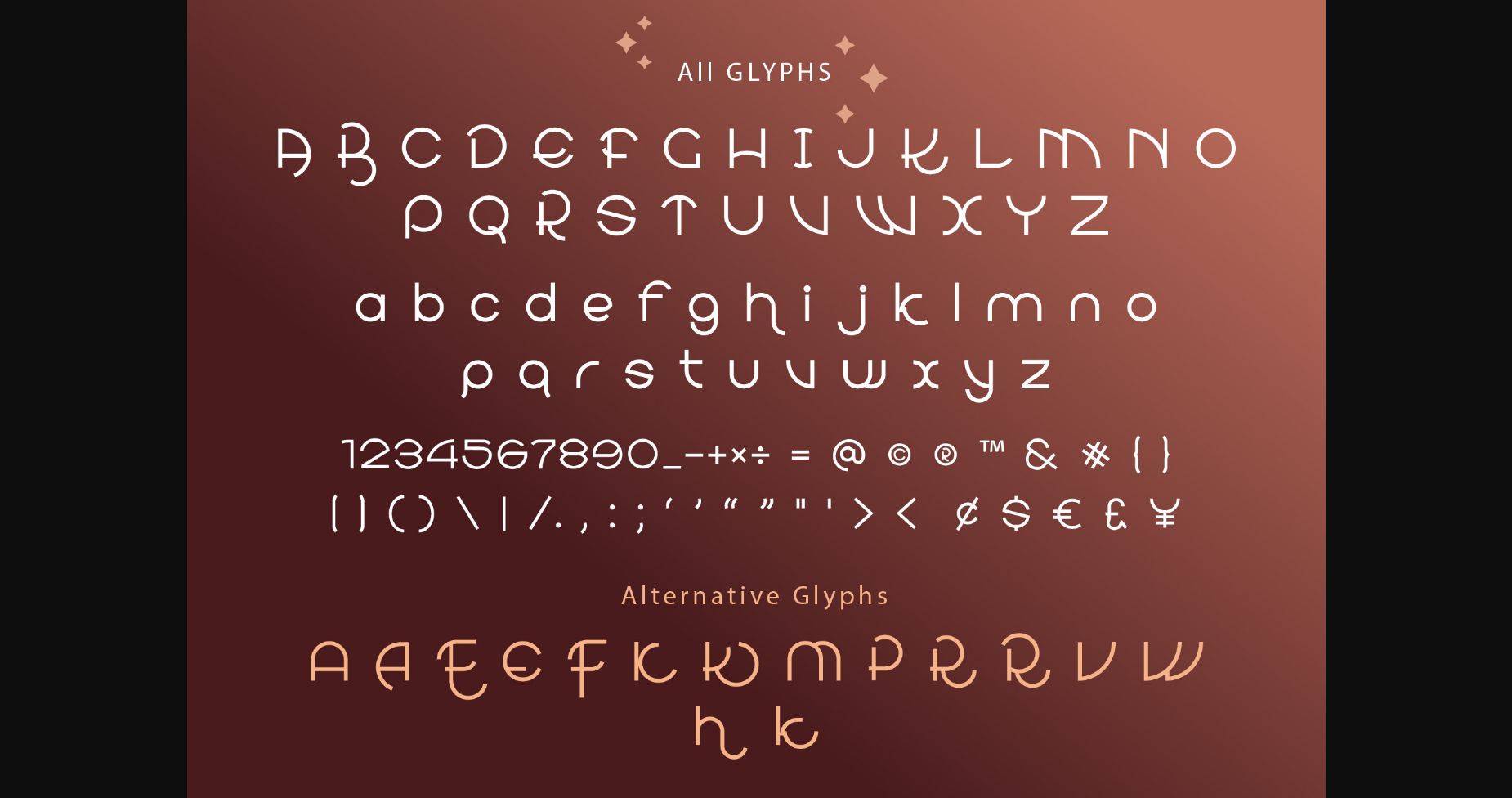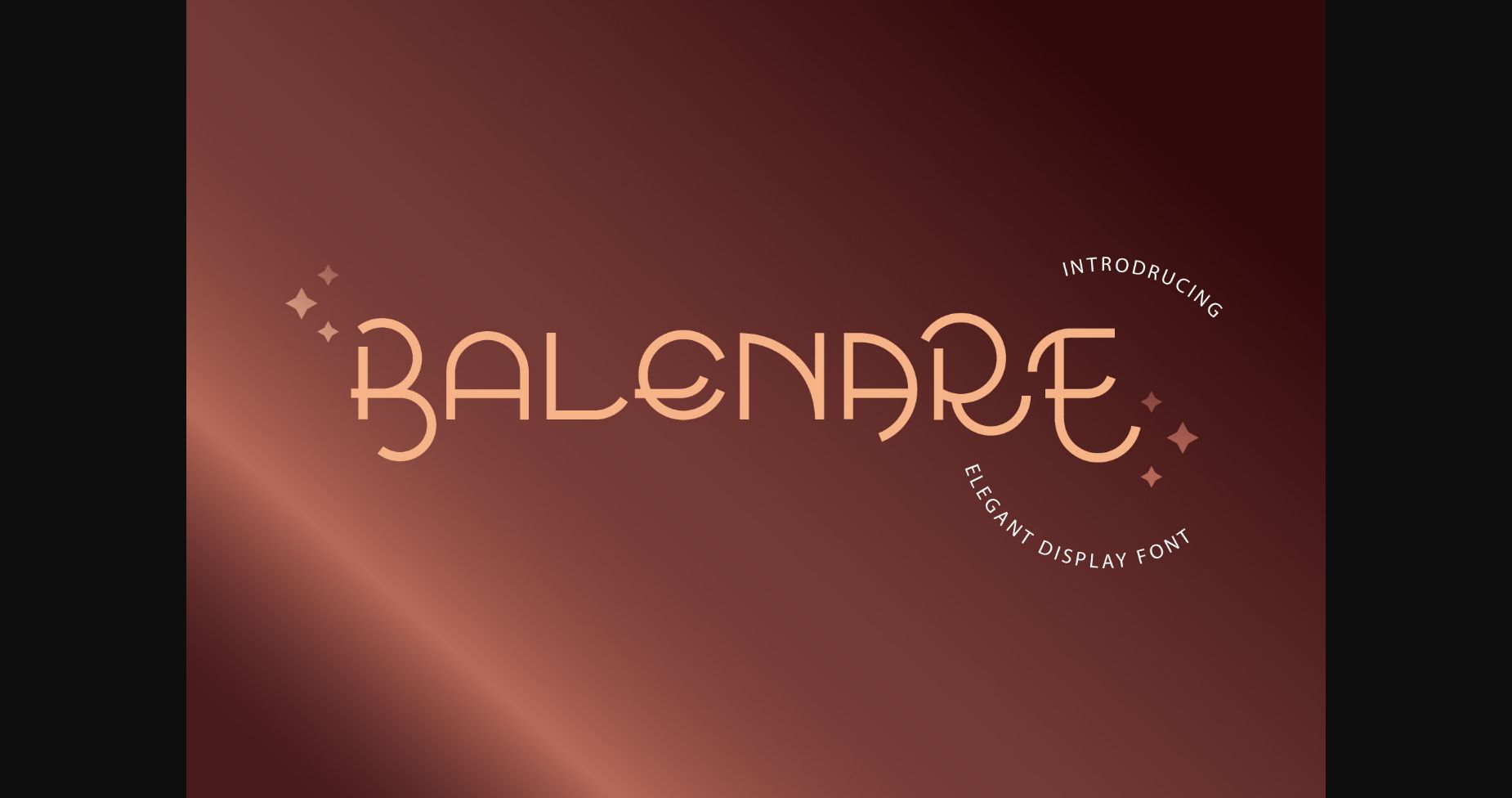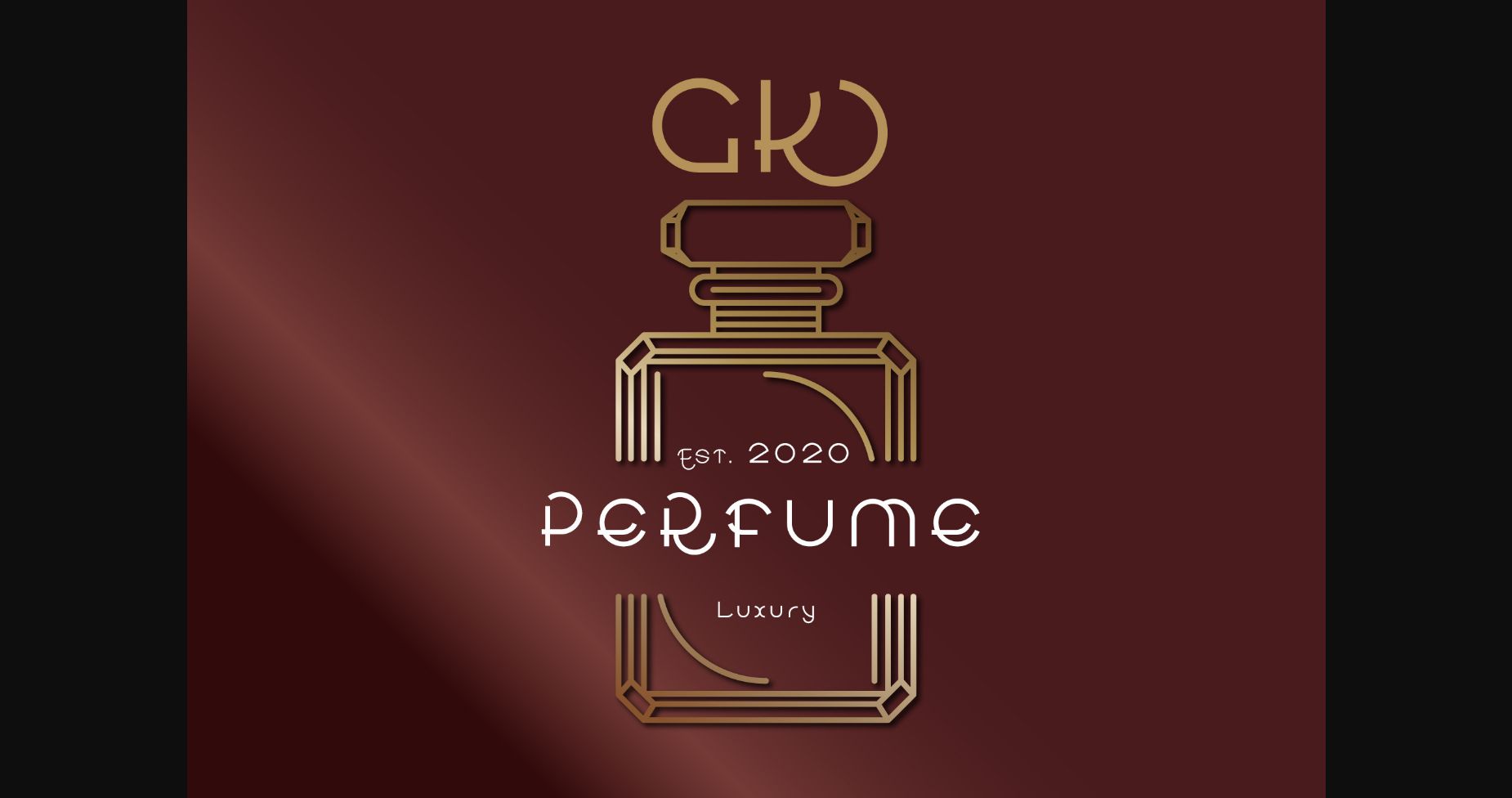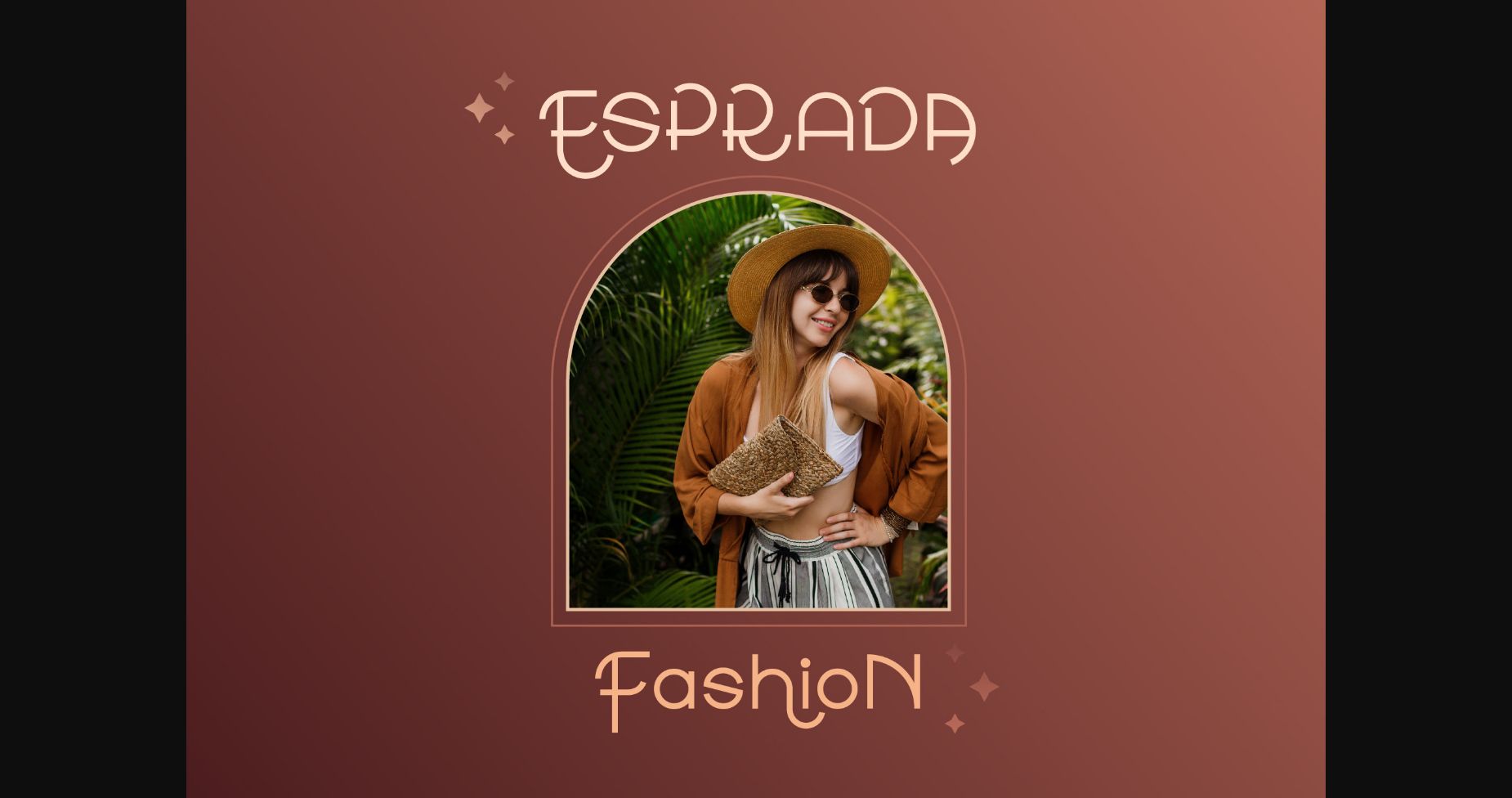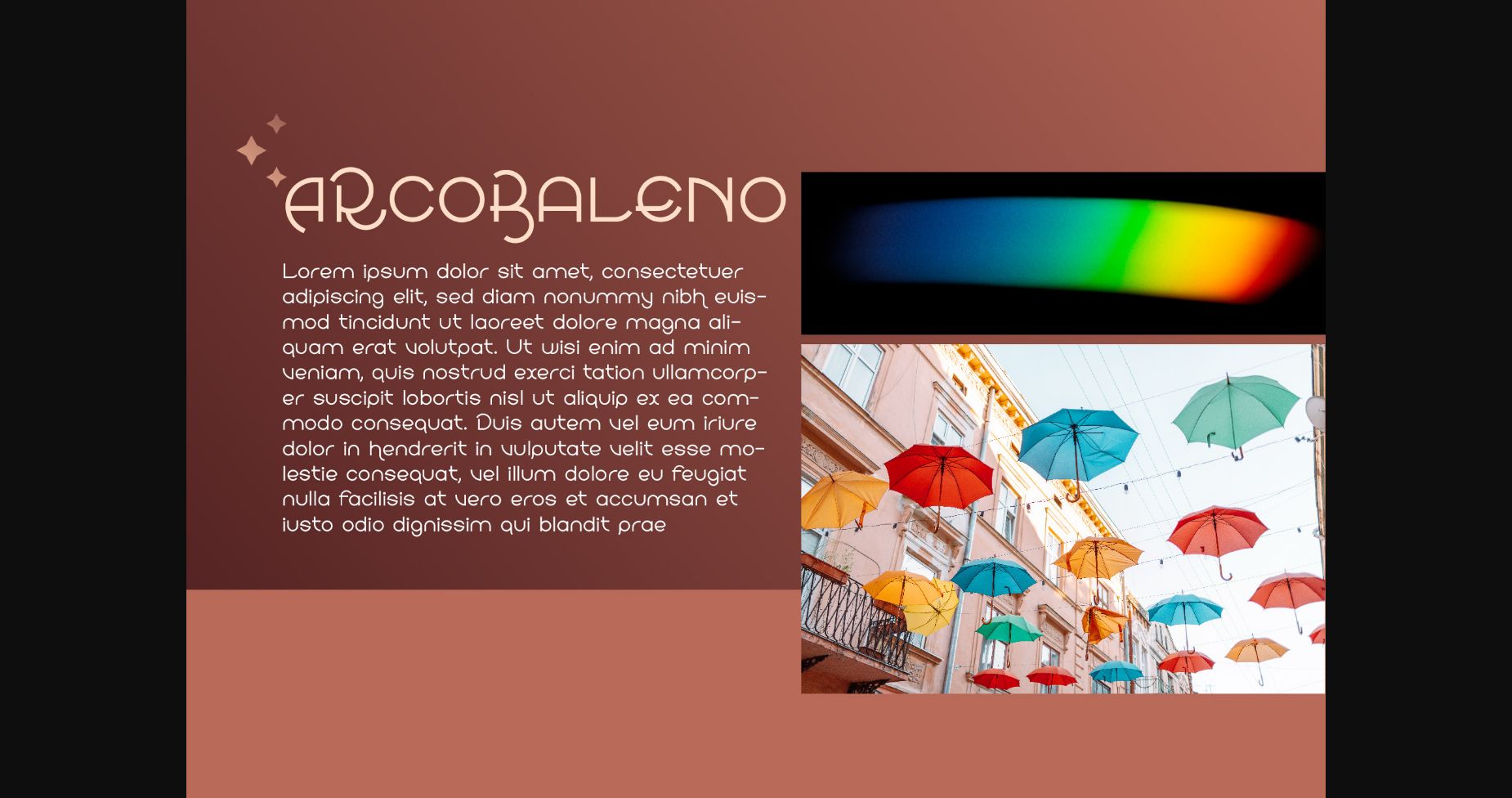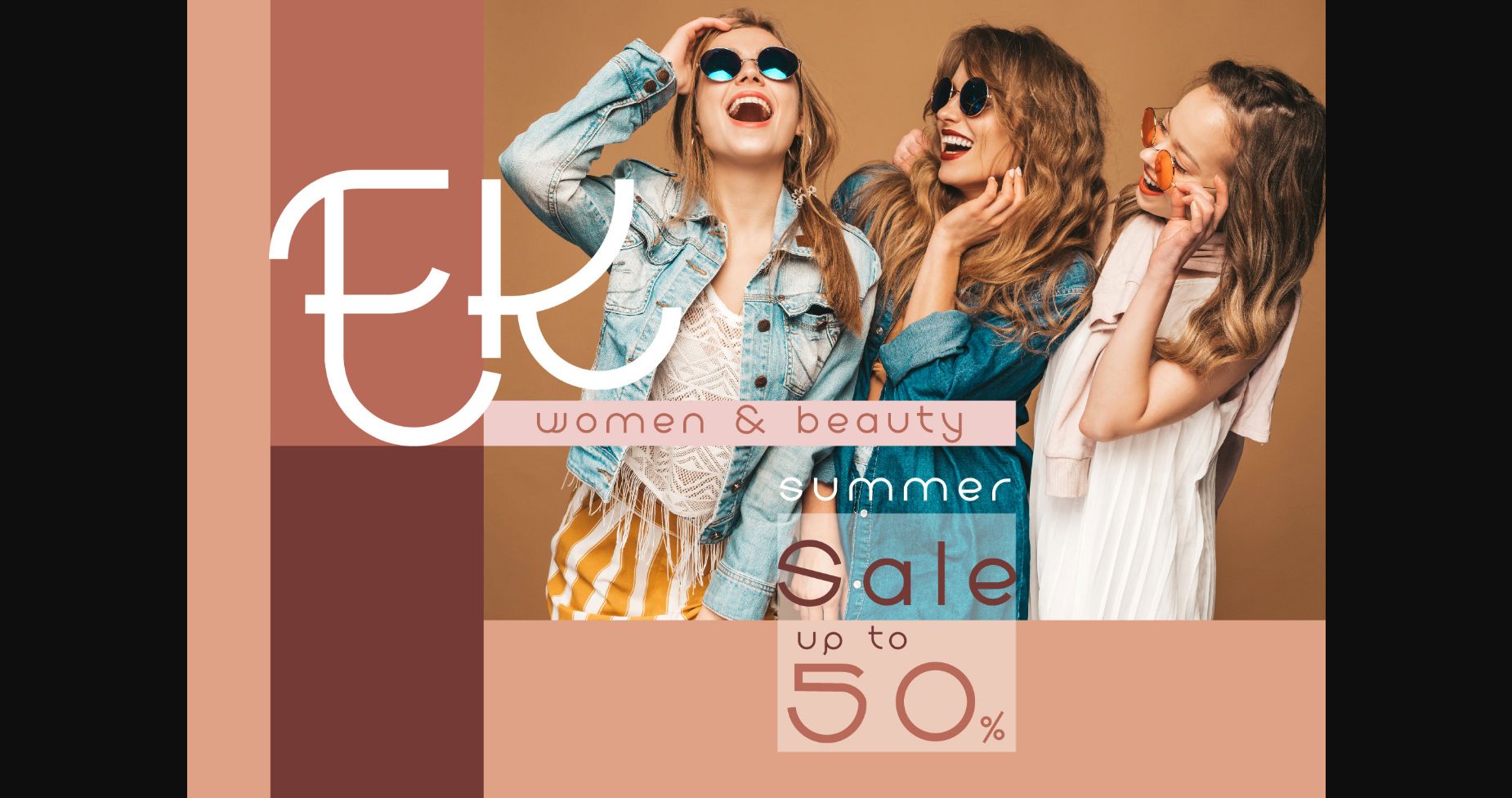
HomeSans Serif FontsBalenare Font Sans Serif Fonts Balenare Font FacebookTwitterPinterestWhatsApp 1 of 8 ... Balenare Font Poster 2... Balenare Font Poster 3... Balenare Font Poster 4... Balenare Font Poster 5... Balenare Font Poster 6... Balenare Font Poster 7... Balenare Font Poster 8... About Balenare Font Balenare is a modern sans serif font. It features a classy style that makes it perfect for branding, logos, magazines, flyers, social media posts and more! DOWNLOAD NOW 125 0 People also explored Cheetah Kick Font Sing a Song Font Easter Holiday Font Wonderland Font Baby Bee Font Carmida Font Rollingstone Font Flared Font Le Vangeline Font Hallalan Ya Ramadhan Font Portland Signature Font Badang Font TagsBalenare Font Previous articlePakky Modern Slim FontNext articleGremio Font LEAVE A REPLY Cancel reply Comment: Please enter your comment! Name:* Please enter your name here Email:* You have entered an incorrect email address! Please enter your email address here Website: Save my name, email, and website in this browser for the next time I comment. Unlock Endless Creativity with the FREE September Clipart Huge Bundle (Valued at $700!) Personal Use Free Advantage Personal Use Free Read more Sunbright Font Personal Use Free Read more Loving You Personal Use Free Read more No Virus Personal Use Free Read more BLOG Using Fonts in Digital Marketing: Tips to Strengthen Your Brand Identity In the realm of digital marketing, every visual element plays a crucial role in shaping a brand's identity, and fonts are no exception. The... The 10 Best Handwriting Fonts to Add Personality to Your Designs Top 7 Google Fonts Alternatives for Faster and Privacy-Friendly Web Design (2025) To increase your work productivity, choose the most readable fonts.